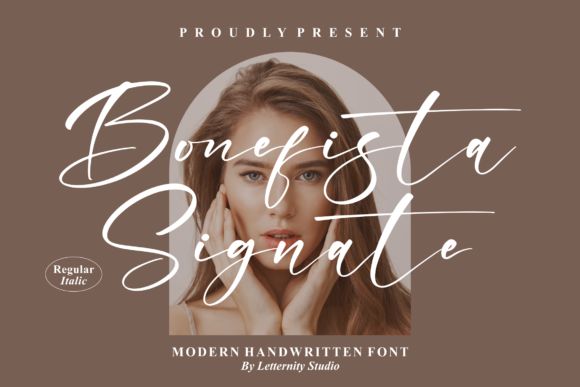
About Bonefista Signate Font
Bonefista Signate is a beautiful script font, suitable for any projects such as logos, branding projects, homeware designs, product packaging, mugs, quotes, posters, shopping bags, t-shirts, book covers, name cards, invitation cards, greeting cards, labels, photography, watermark, special events, and all your other lovely projects that need a beautiful script taste.